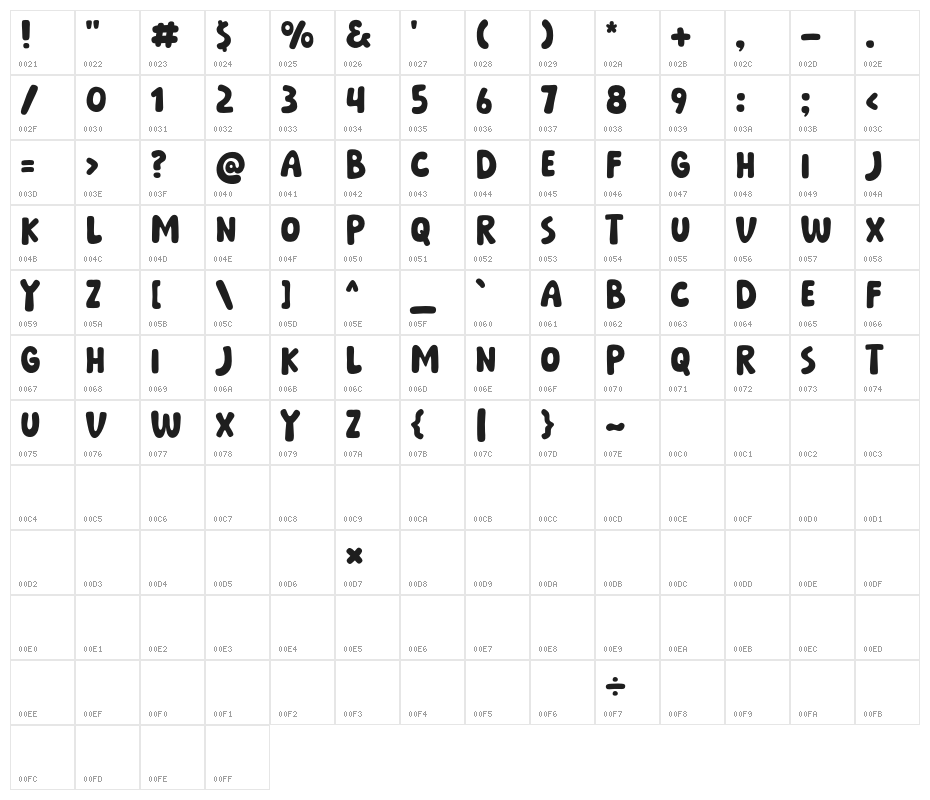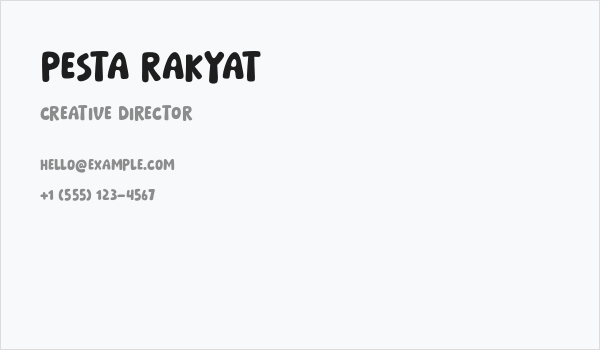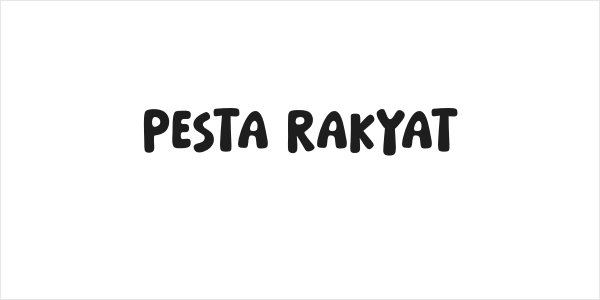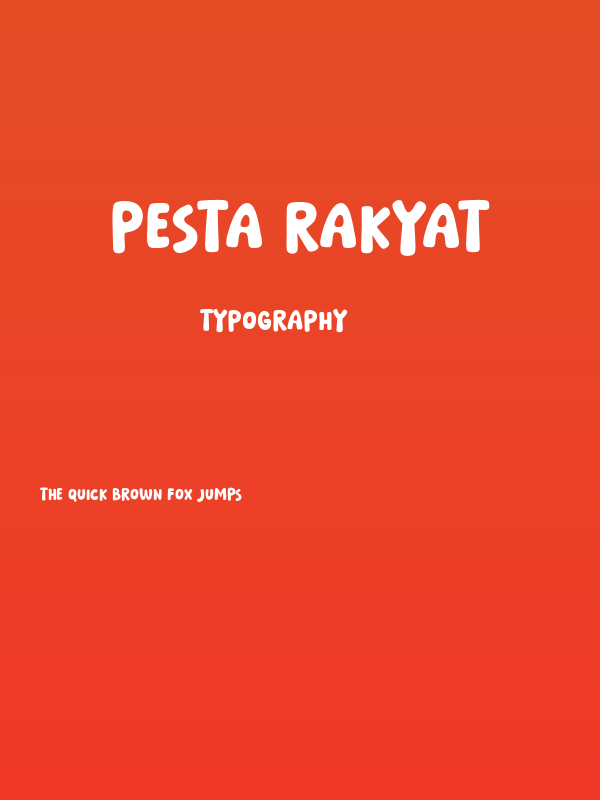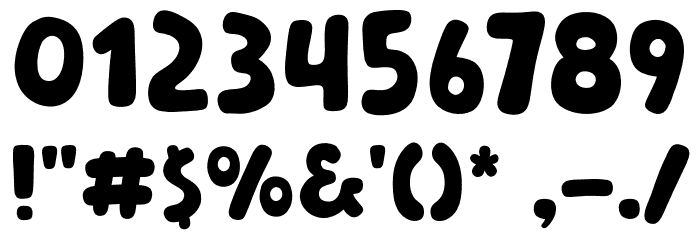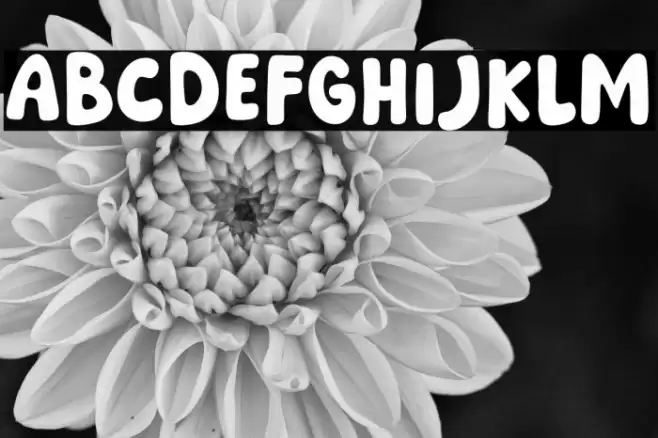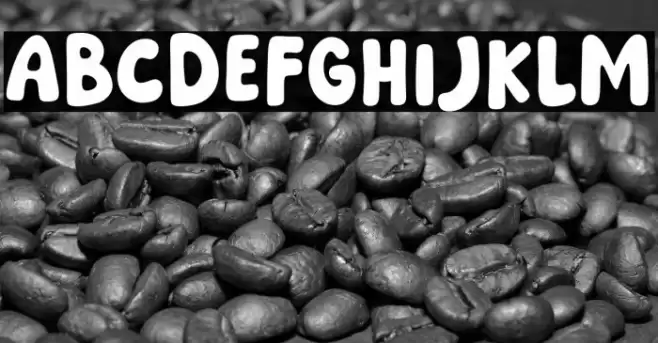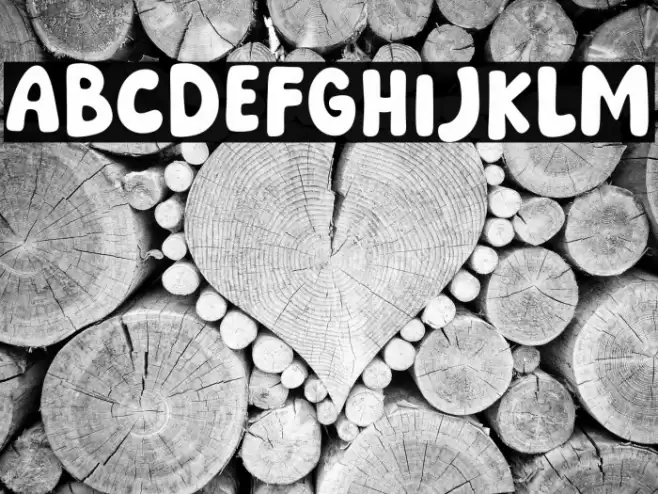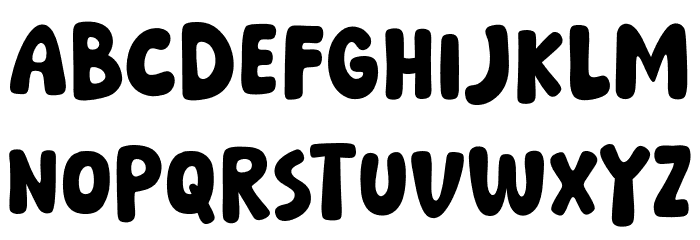
Pesta Rakyat Font
| Estilo general | Playful, Casual |
| Caso de uso | Headlines, Posters, Branding |
| Proyectos propuestos | Ideal for children's books, posters, event flyers, and branding that requires a fun and approachable look. |